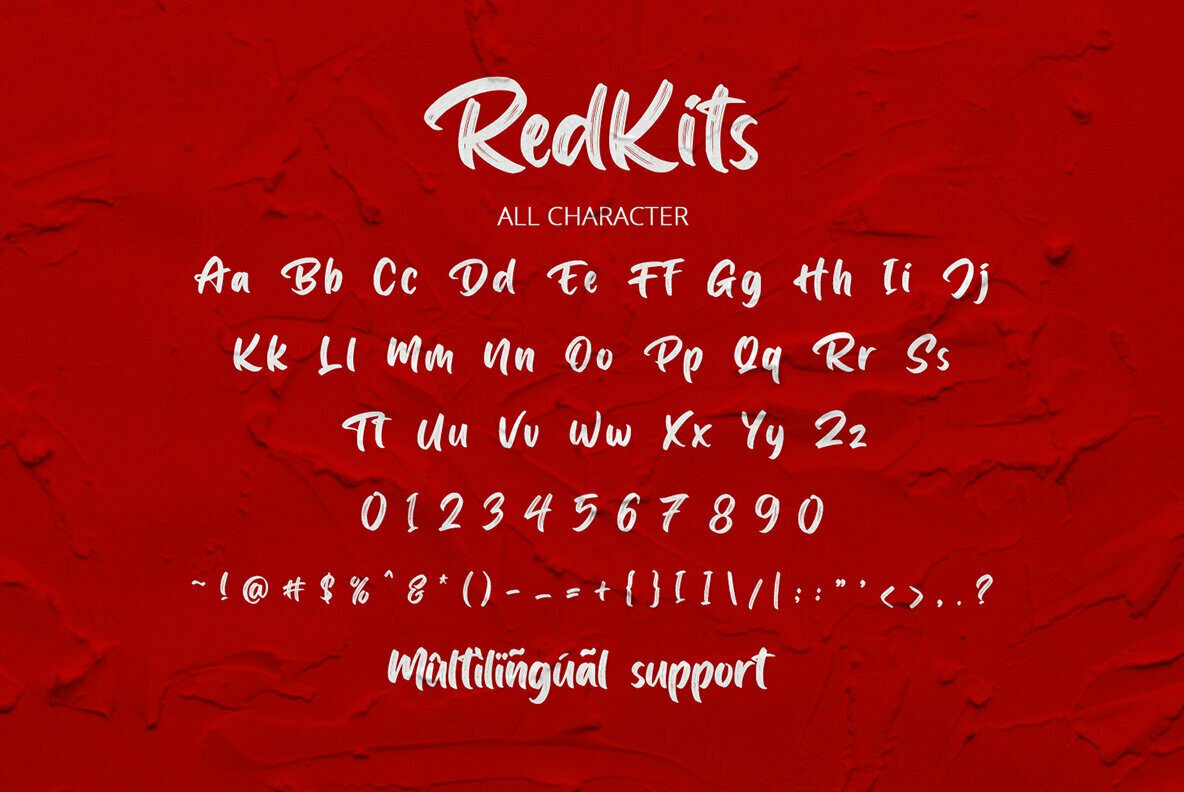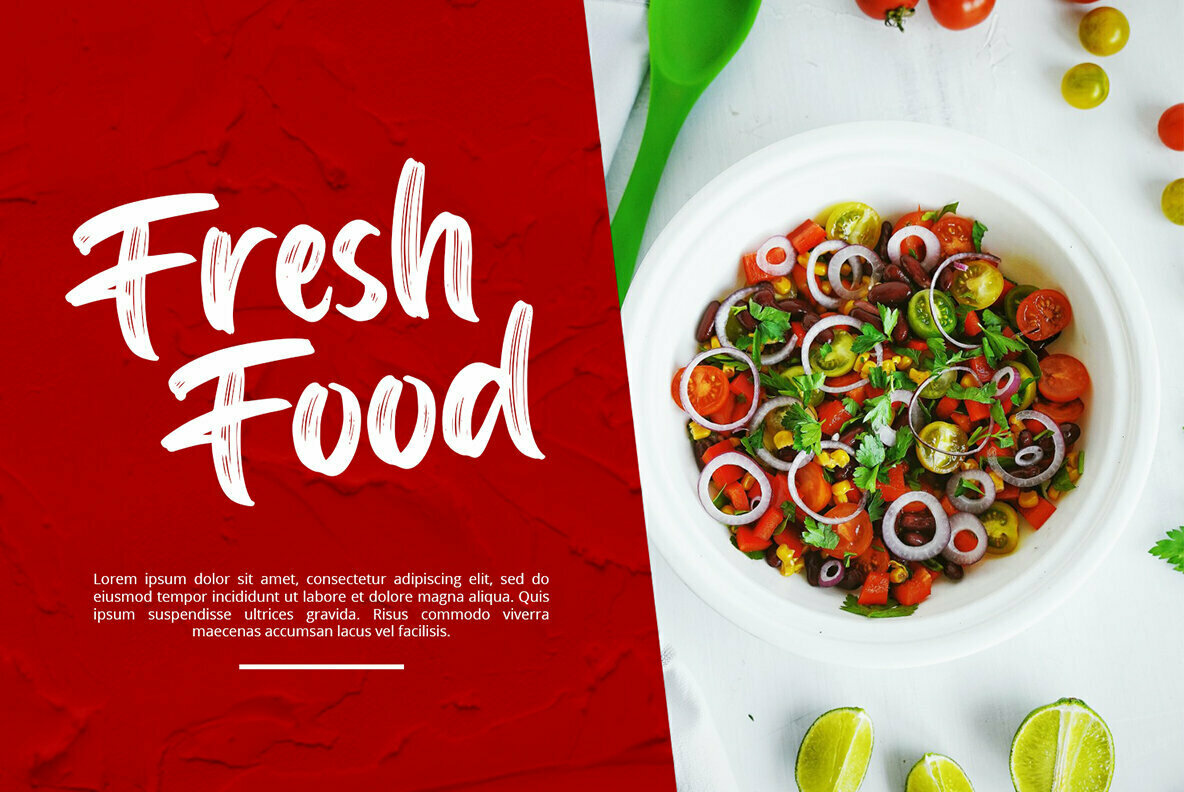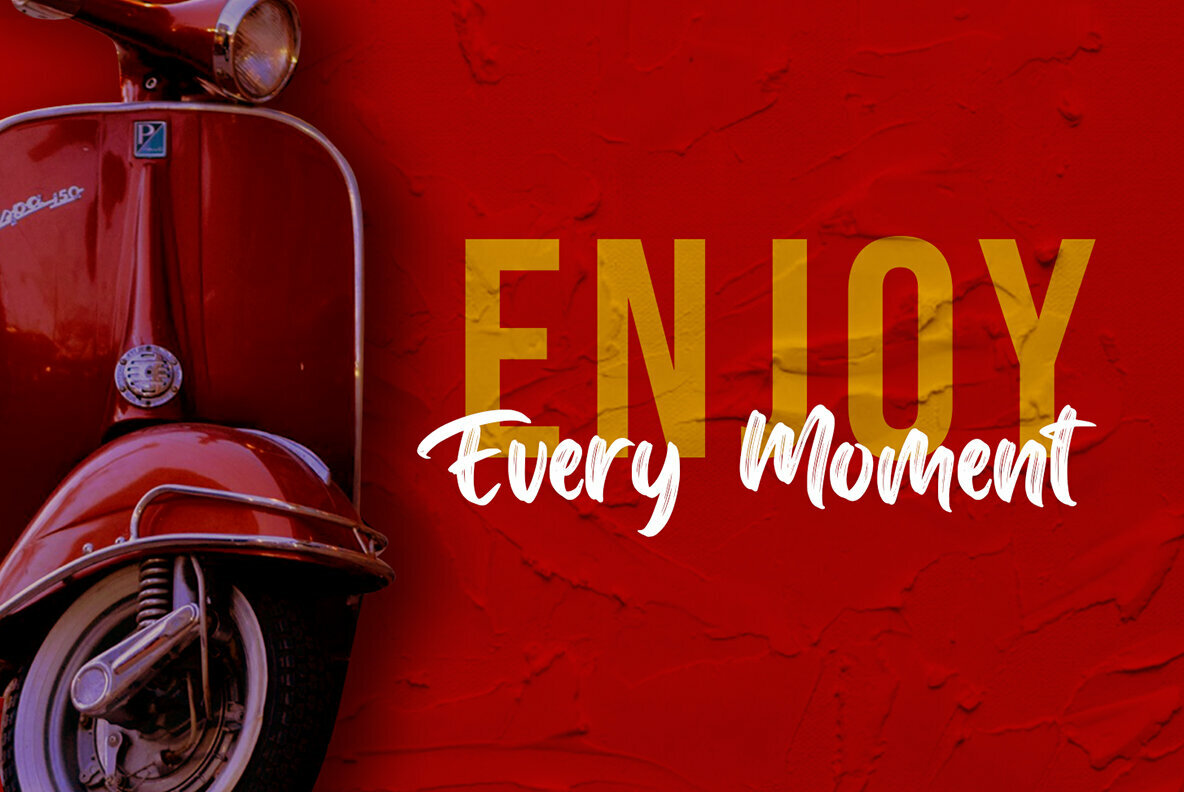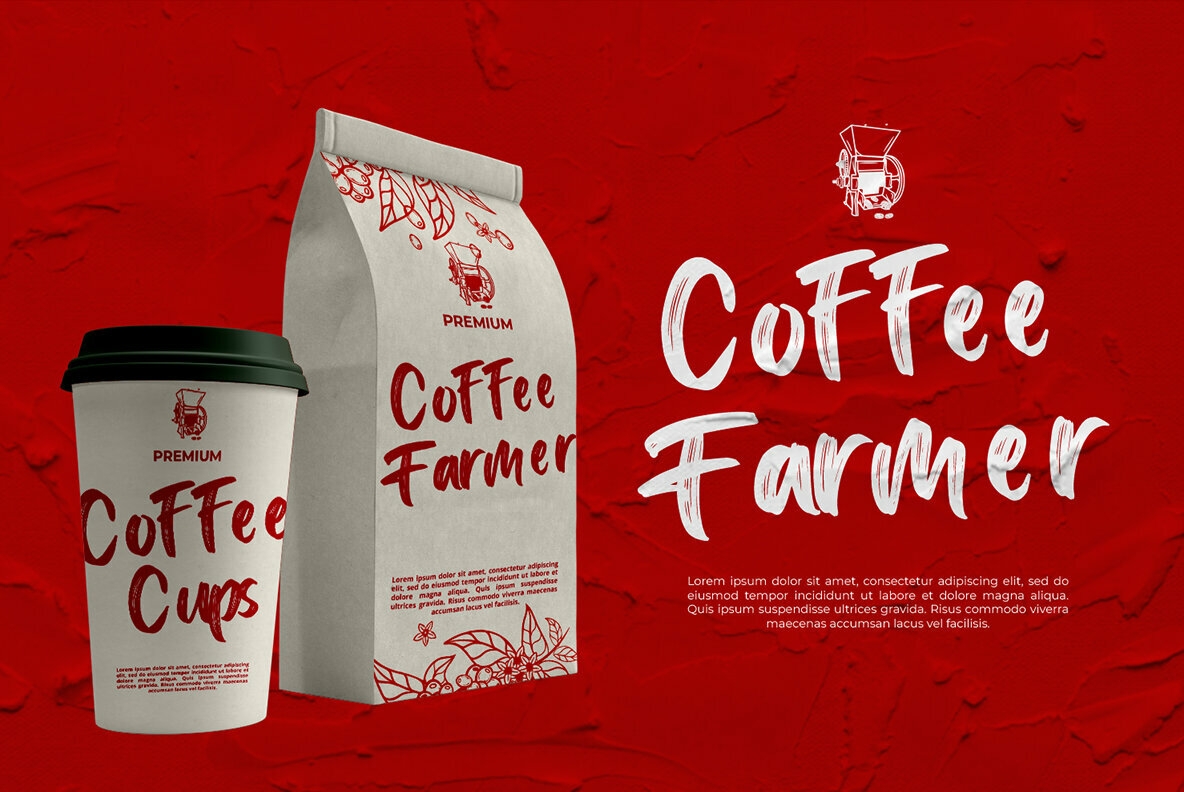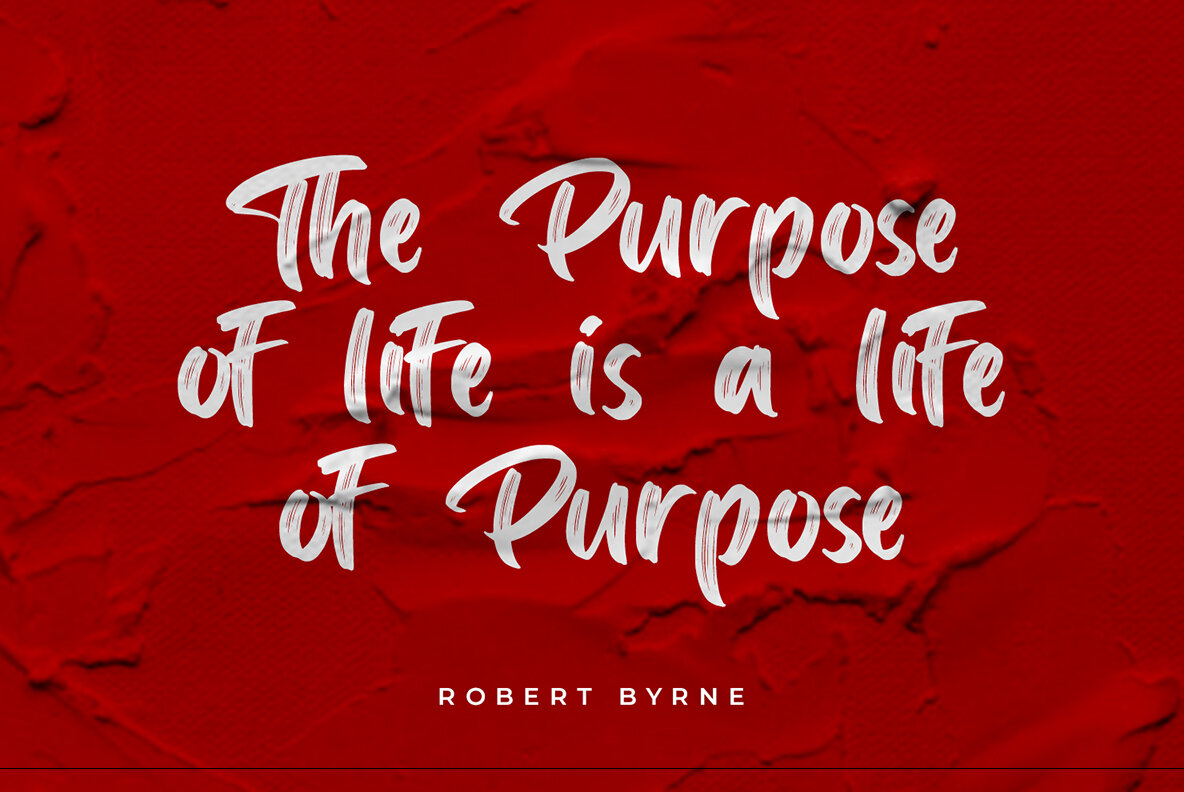
RedKits is a beautiful brush font. The handwritten combined with brush font will make your design project more attractive. Made for any professional project branding. It is the best for logos, branding and quotes.
- Numerals and Punctuation